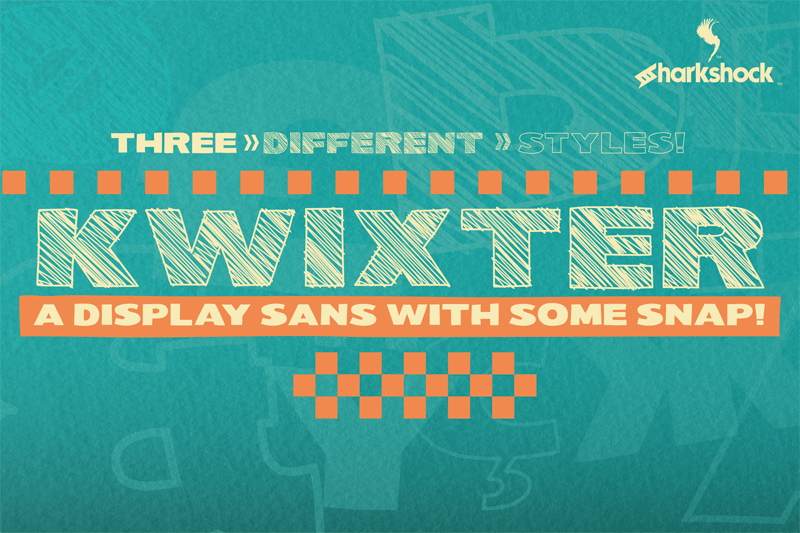
TTF and OTF: Kwixter (Regular, Outlines, & Sketch) By Dennis Ludlow Sharkshock 2019 all rights reserved dennis@sharkshock.net Kwixter is a rugged, all caps, display sans that doesn�t take itself too seriously! The 3 different versions include Regular, Outlines, and Sketch. This broad, yet childlike font was designed to take up horizontal space and inject a little playfulness into your project. The binary nature of this family means it will find many helpful uses in your type collection over the years. It�s structured enough for commanding web headers yet cartoony enough to end up on a kid�s book. Use Kwixter for a company logo or the Sketch version for toy packaging/merchandising. Basic Latin, Extended Latin, punctuation, Cyrillic, Serbian support, and kerning are included in the full version. Please check the glyph map for all supported characters. The demo contains basic Latin, Cyrillic, and limited punctuation. The complete family with all 3 versions is available at $45 for personal use only. This does NOT constitute a commercial license. For commercial licensing please visit www.sharkshock.net/license or send us an email. Commercial usage without a license is strictly prohibited and a violation of our terms and conditions as well as International copyright law. Visit www.sharkshock.net and take a bite out of boring design! Tags: serif, sans, kids, children, child, scribble, handwriting, broad, stroke, irregular, playful, fun, outlines, sketch, stippled, logo, simple, Russian, French, Spanish, European, diacritics, Cyrillic, crosshatch, Italian, headline, Ukrainian, news, book, web, text, type, headers, office, company, bold, cartoon, design, graphic, publishing, book, comic |